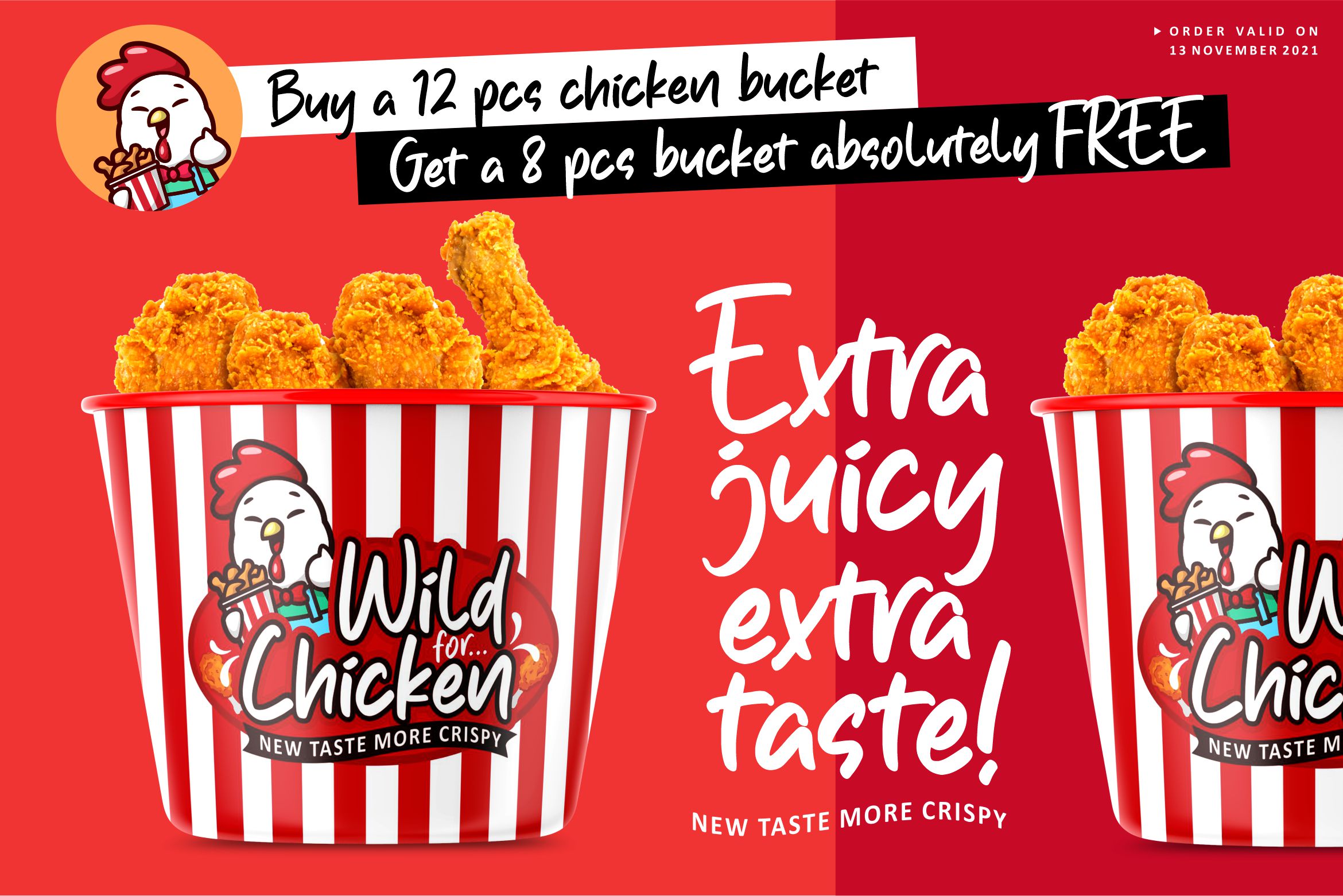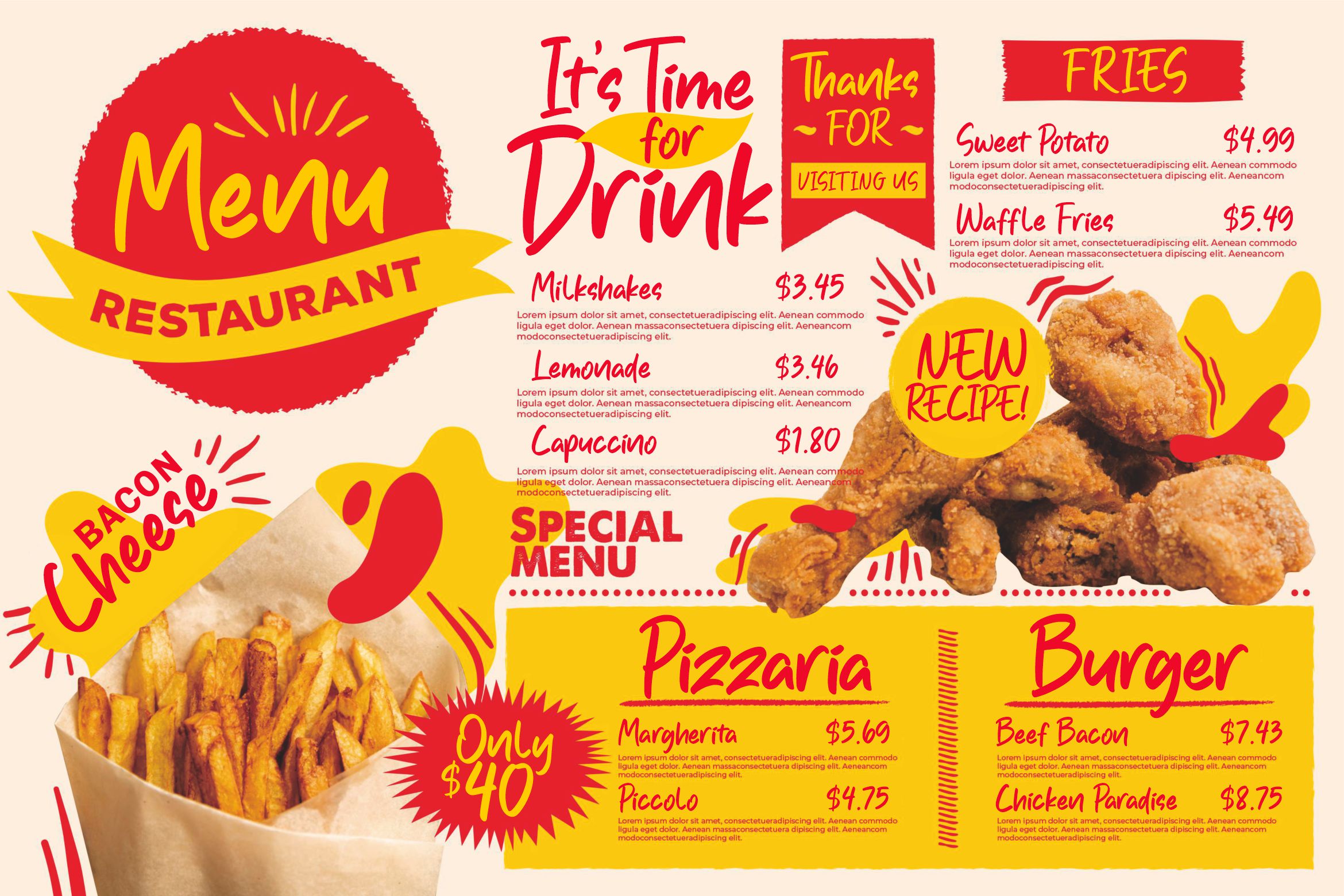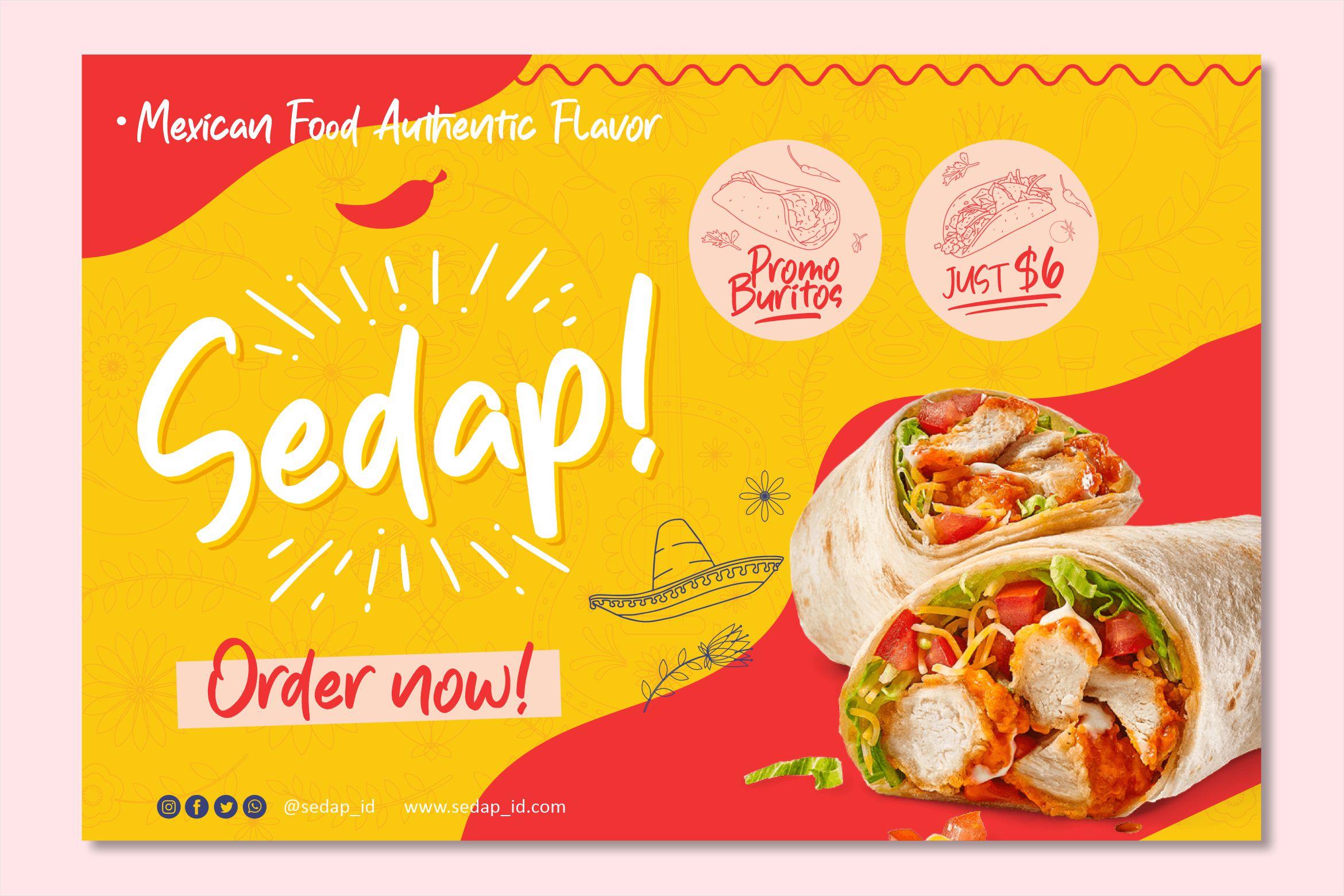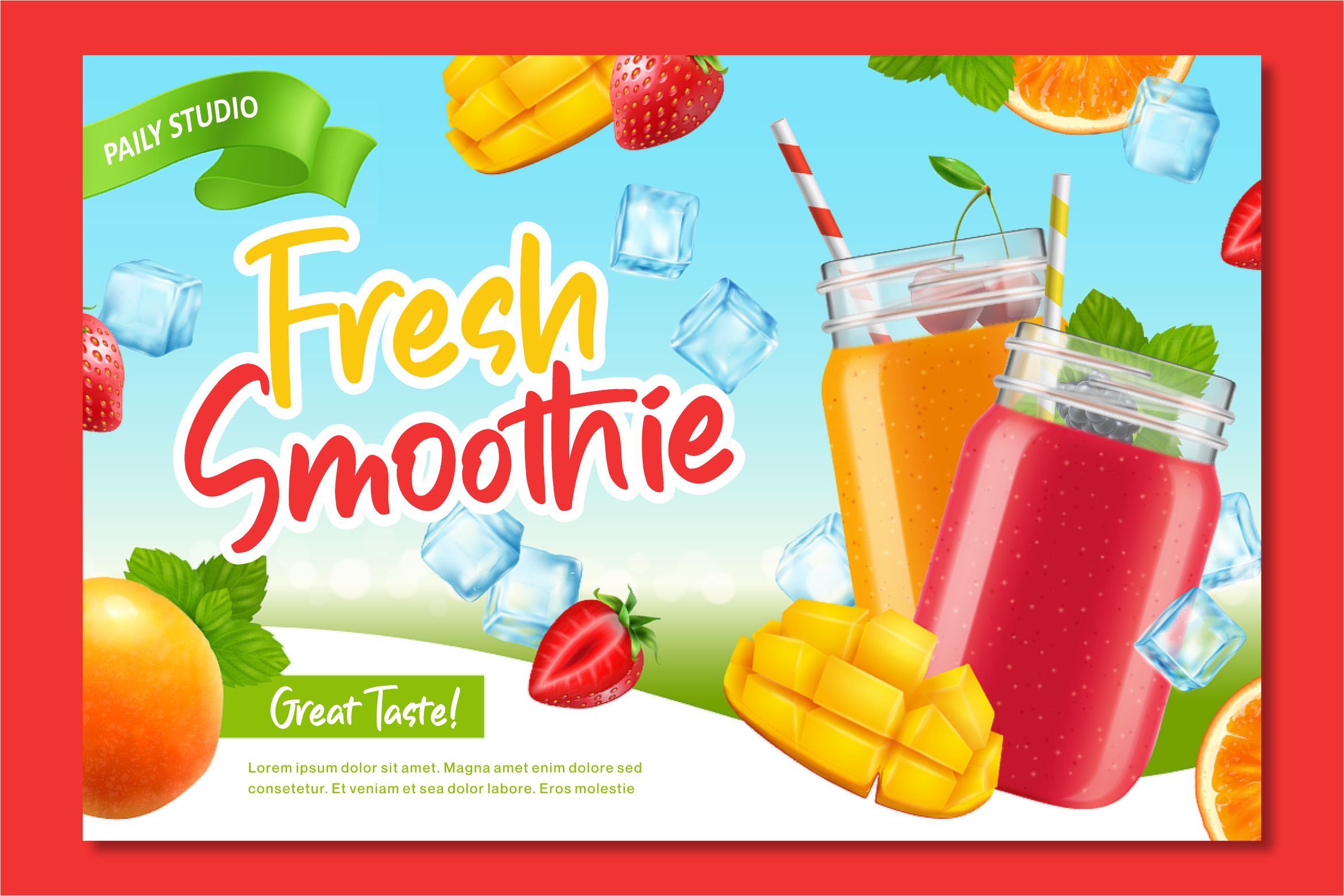
Spicy Chicken Font
Spicy Chicken Script Font
Introducing by Paily Studio!
Spicy Chicken is a Modern Handbrushed Font.
Spicy Chicken feels equally charming and elegant. It looks stunning on wedding invitations, thank you cards, quotes, greeting cards, logos, business cards and every other design which needs a handwritten touch.